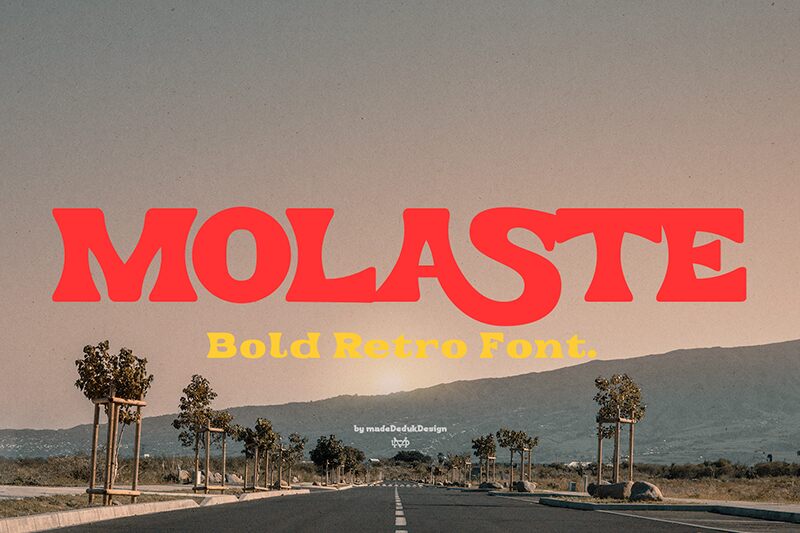
Molaste font by madeDeduk is a free retro-inspired font characterized by its expressive and dynamic decorative style. The letters embrace a nostalgic vibe that features a seamless energetic connection where they almost meet. This brilliant technique adds an engaging vivid aesthetic to the font without sacrificing its impactful presence. The font is well suited for all kinds of headings where an eye-catching nostalgic flair is needed.
Make use of Molaste for your signages, magazine titles, advertisement posters, book covers, digital content, or even in your brand development needs. All of these and a lot more ideas can be elevated by the stylized flair that Molaste will infuse into your letters.